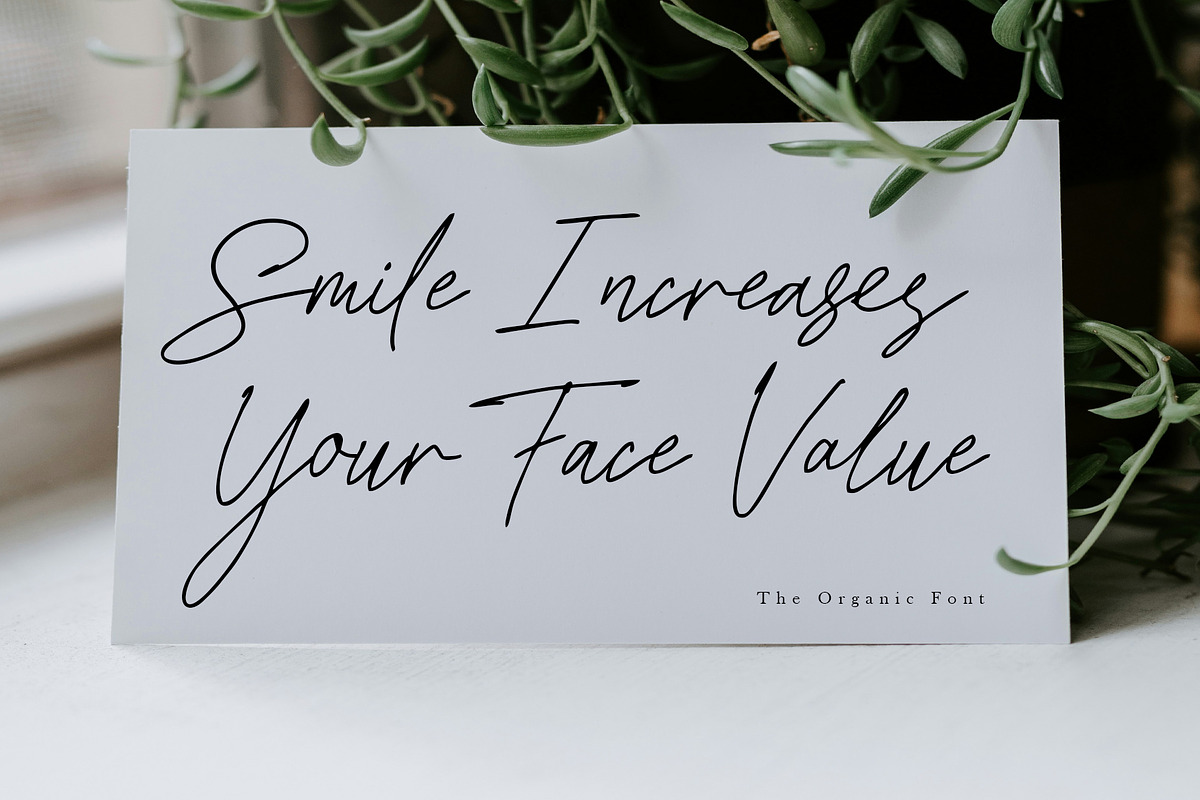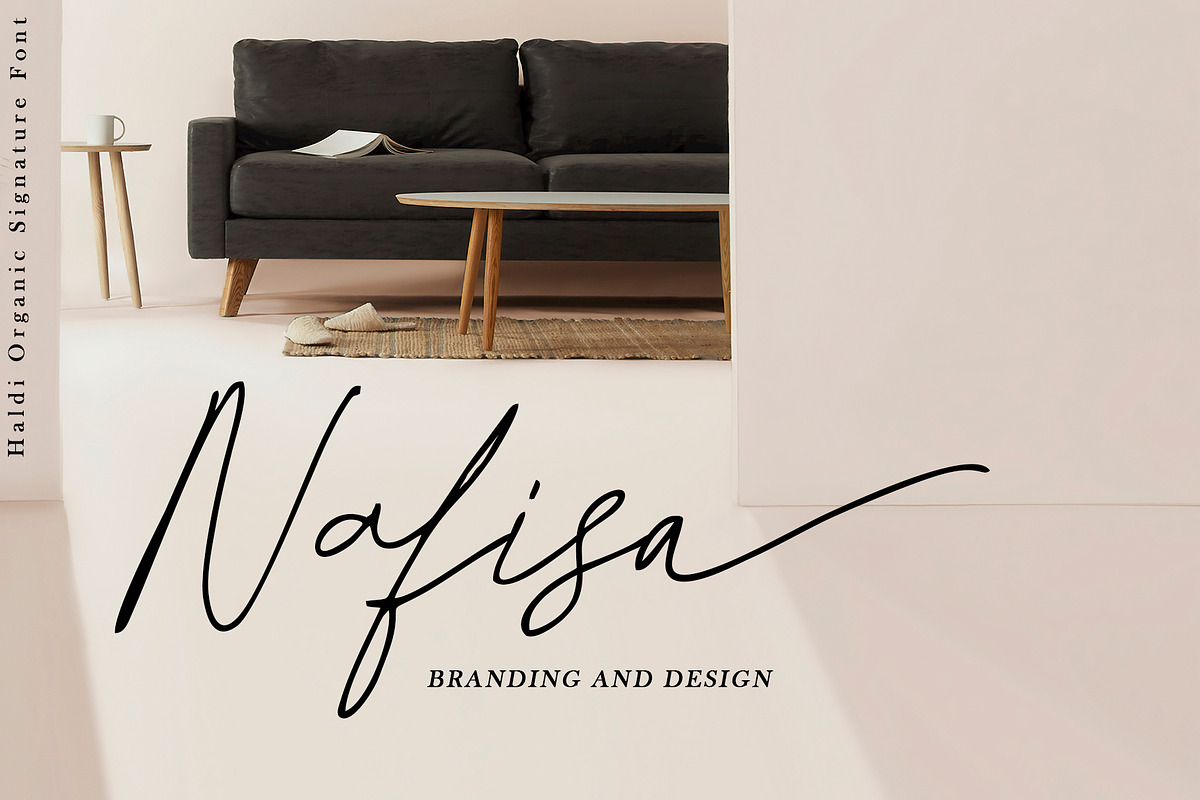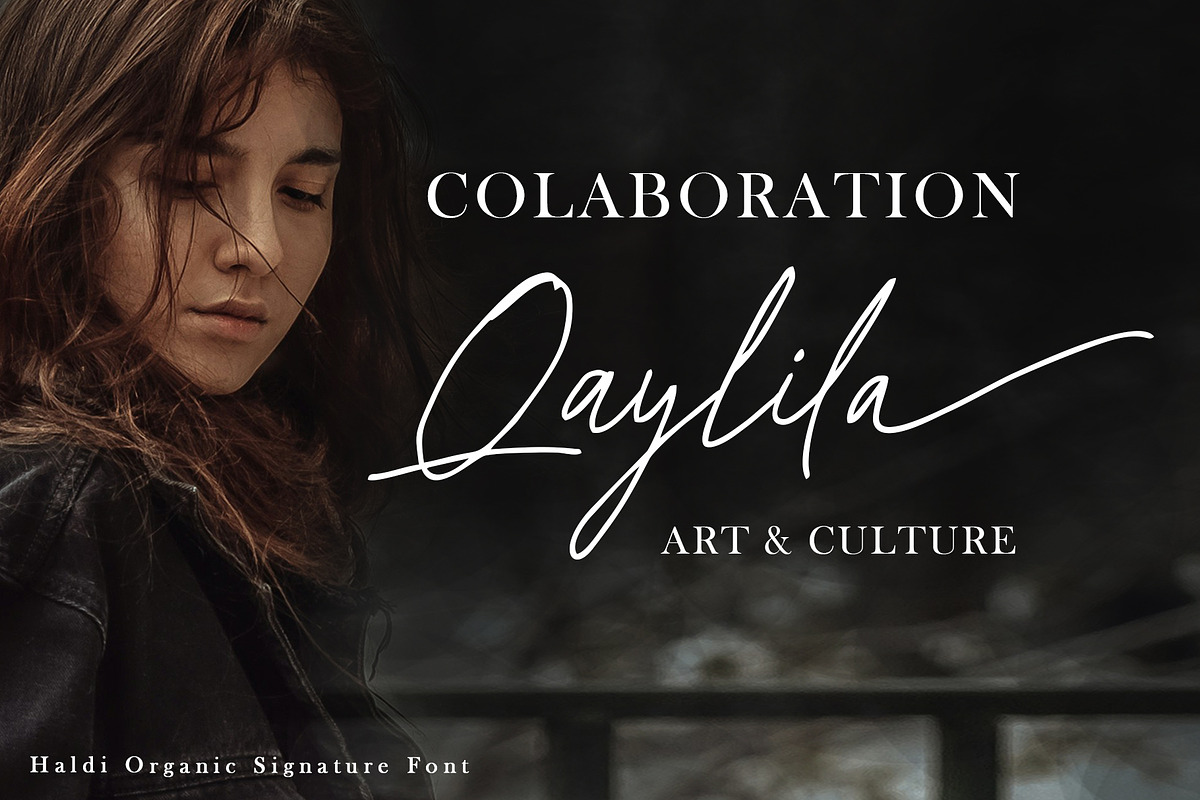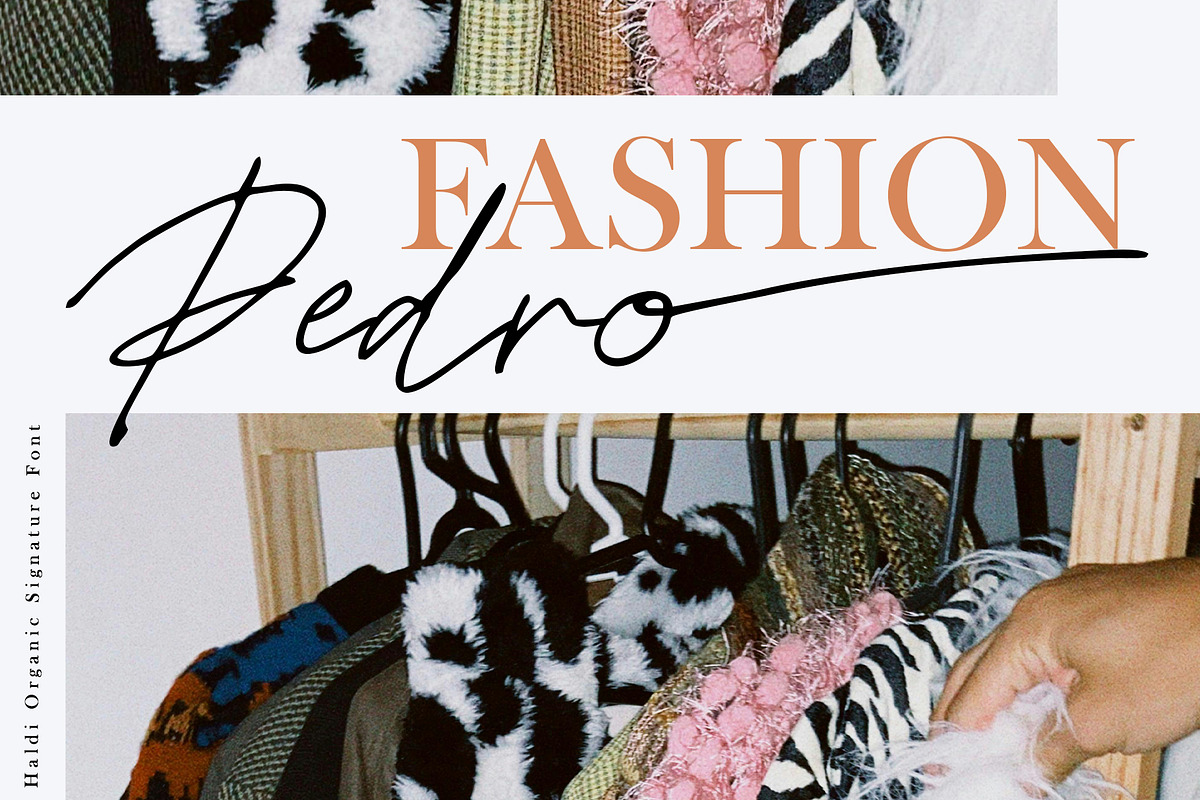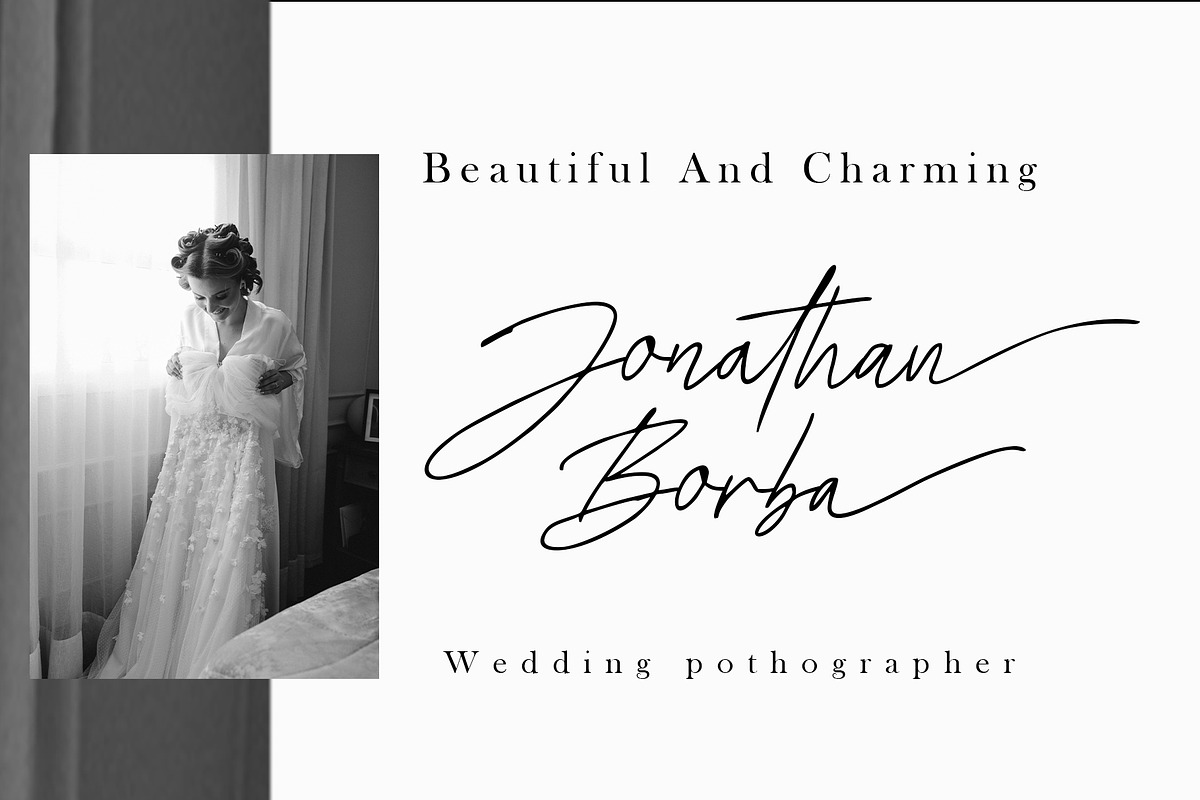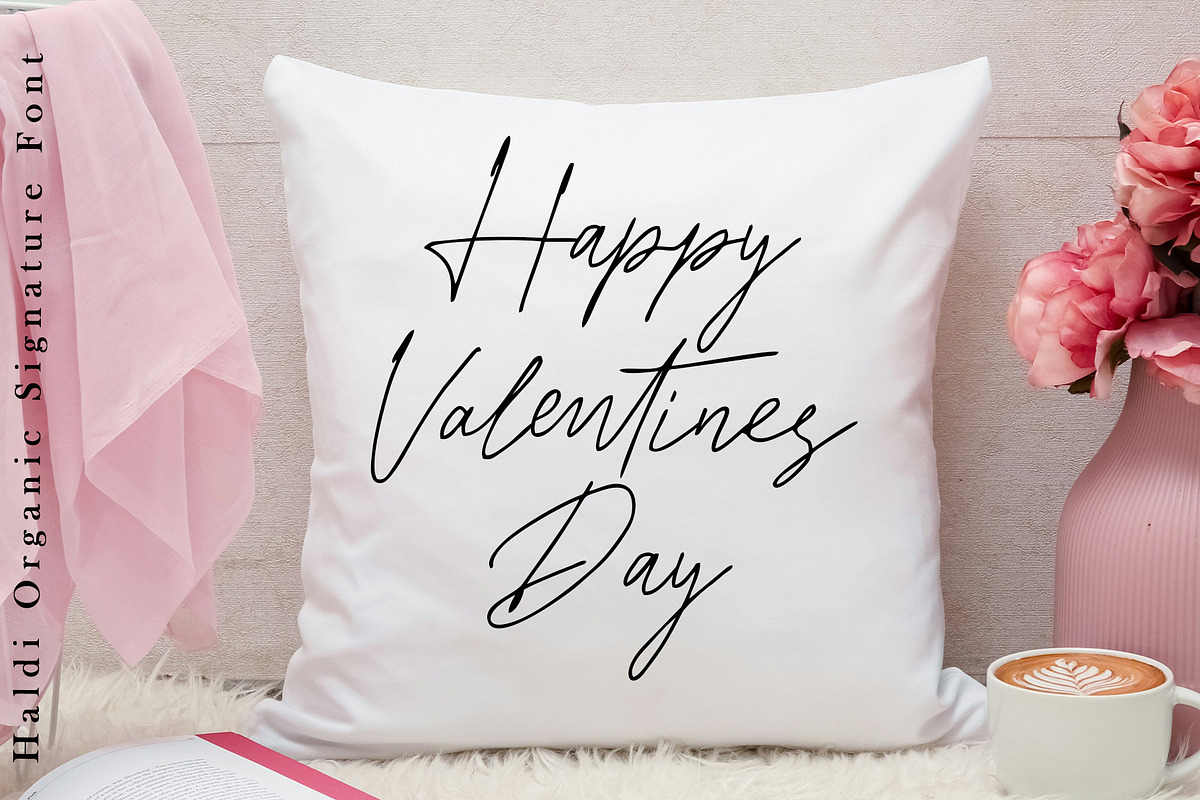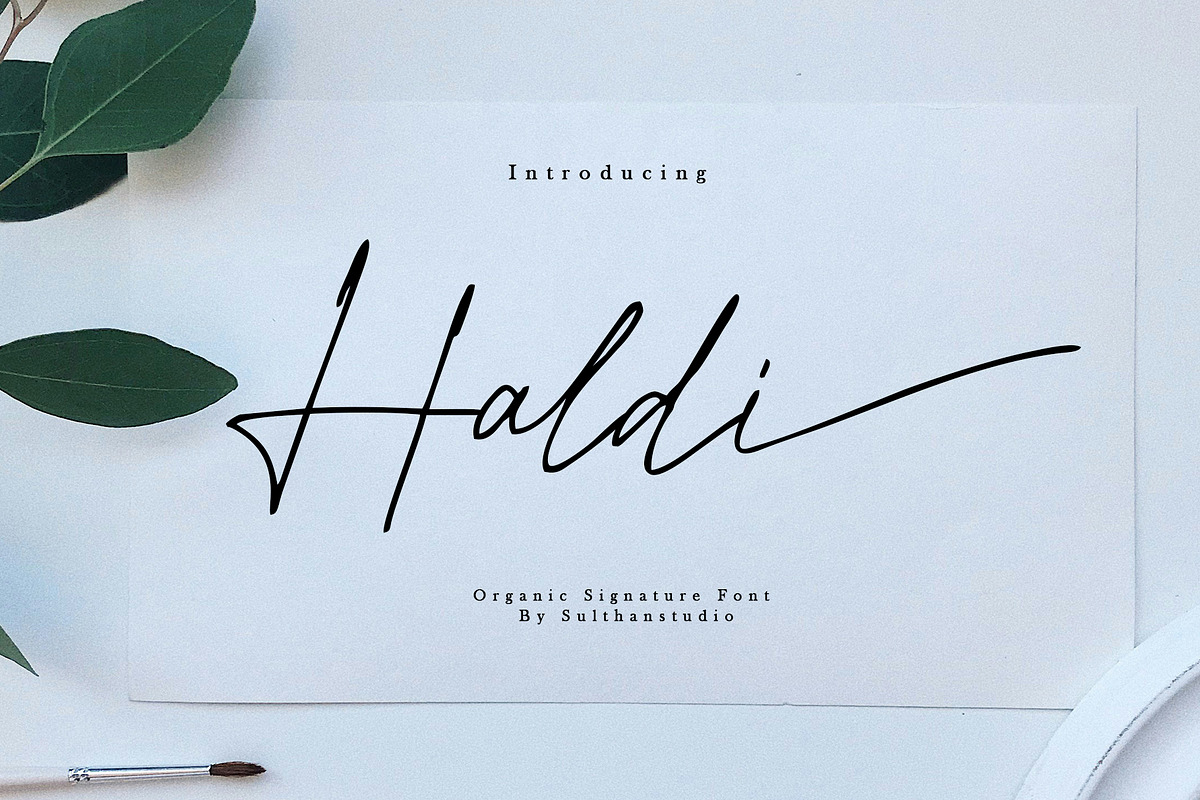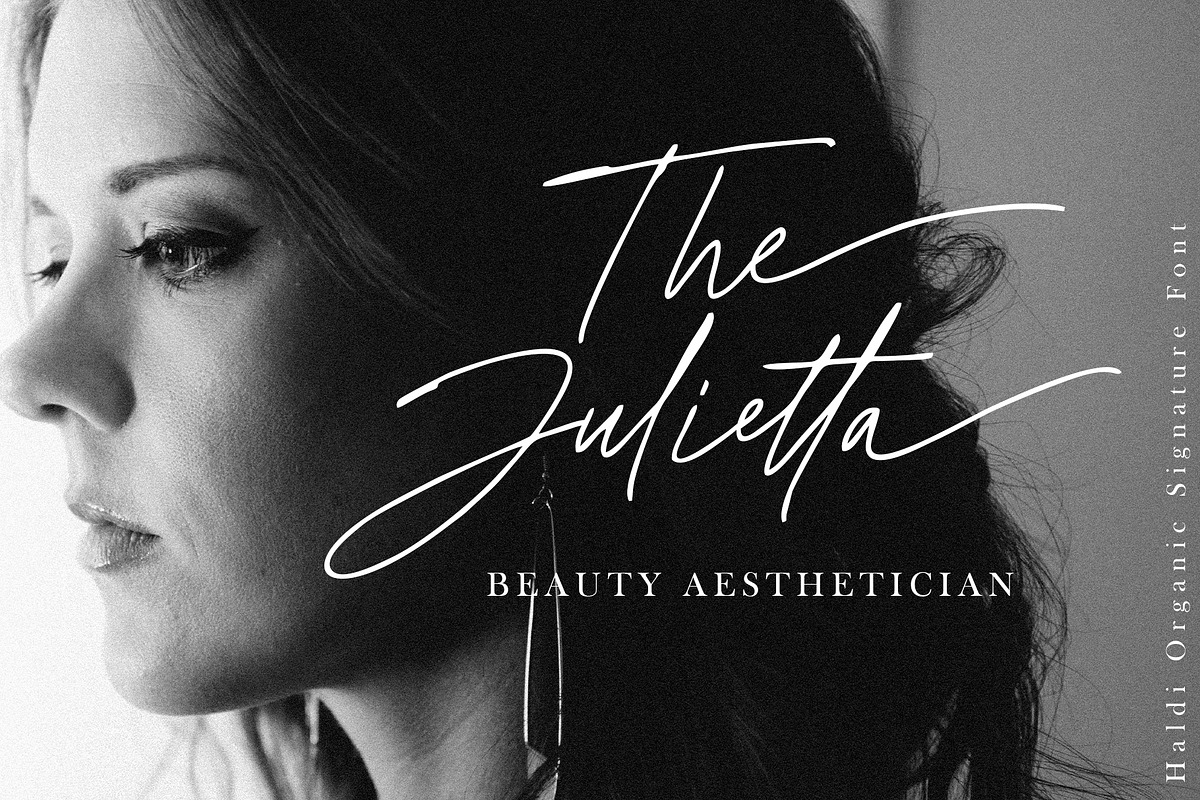
Haldi signature
Introducing "Font Signature," an organically crafted typeface with a unique touch. Each curve and contour is meticulously hand-drawn before being transformed into crisp vectors. This modern yet timeless font embodies the perfect balance between refined sophistication and raw authenticity. As you weave your stories through words, Font Signature will lend its unique character, bringing your ideas to life with style and flair. Unleash your creativity with the handcrafted elegance of Font Signature. A testament to tactile artistry, this font seamlessly blends artisanal craftsmanship with digital precision, making it a captivating choice for a myriad of design projects.